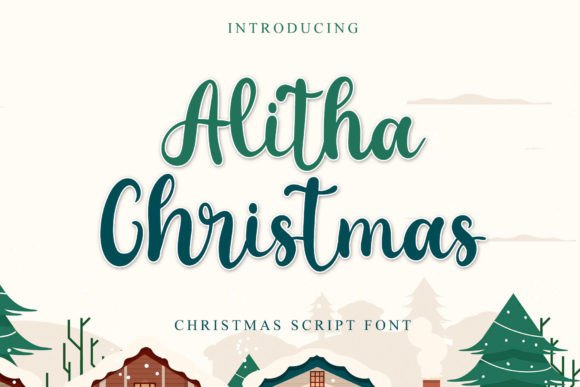
The Magic of Alitha Christmas Font: A Designer’s Delight
I’ll never forget the time I was working on a Christmas project for a client, and I just couldn’t find the perfect font to match the elegance and whimsy of the design. The client wanted something that would make their holiday card stand out, but I was stuck in a font rut. That was until I discovered the Alitha Christmas font – a game-changer for any designer, crafter, or creative hobbyist looking to add a touch of magic to their projects.
A Personal Review: What I Love About Alitha Christmas Font
As soon as I laid eyes on Alitha Christmas, I knew I had found the one. Here’s what I love about this beautiful font:
- ✨ Elegant and flowing script with a timeless style
- ✅ Perfect for creating spectacular designs that stand out
- 💫 Incredibly distinct and unique, making it perfect for branding and holiday projects
- 🎉 Easy to read and works well in various sizes
While Alitha Christmas is an amazing font, there are a few things to keep in mind:
- 🤔 Some letters may require manual kerning for optimal spacing
- ⚠️ Limited availability of certain special characters
- Experiment with OpenType features, such as ligatures and stylistic alternates, to add more flair to your text
- Take advantage of glyphs and OpenType features to create stunning text effects
- Use the font’s built-in features, such as ligatures and stylistic sets, to enhance your document’s design
The Story Behind Alitha Christmas
While the exact backstory of Alitha Christmas is unknown, it’s clear that the designer aimed to create a font that exudes elegance and sophistication. Imagine a designer, sitting by the fireplace, carefully crafting each letter to evoke a sense of holiday magic. That’s the kind of thought and care that went into creating Alitha Christmas.
| Font Name | Alitha Christmas Font |
| Author | Letterafa Studio |
| What makes Alitha Christmas unique? | Its elegant and flowing script, combined with a timeless style, makes it perfect for creating spectacular designs. |
| Is Alitha Christmas difficult to read? | No, it’s designed to be easy to read, even in smaller sizes. |
With Alitha Christmas, you can add a touch of elegance and whimsy to your designs. Whether you’re a seasoned designer or a creative hobbyist, this font is sure to become a favorite in your collection.